In 2019, streetwear brand Rebel Cultura saw a surge in popularity after redesigning its logo and marketing materials using a Chicano font. The brand, which had struggled to resonate with its target audience, adopted a bold, urban aesthetic that reflected its roots in Chicano culture. By incorporating iconic Chicano lettering styles, their designs instantly connected with a wider demographic, particularly among younger audiences who identified with the rebellious and proud ethos of the Chicano font. This case is just one of many examples that highlight the growing influence of Chicano typography in modern design.
Chicano fonts aren’t just a trend—they’re a powerful tool that speaks volumes about identity, culture, and history. If you want to add that same influence to your next project, discovering a Chicano font could be a game-changer for you.
In this article, we’ll explore 15 iconic Chicano fonts that can help bring your designs to life.
What are Chicano Fonts?
Chicano fonts go beyond bold strokes and intricate designs – they express the essence of a cultural movement. Rooted in the Mexican-American experience, these fonts are deeply connected with the struggles and triumphs of Chicano history, reflecting resilience, pride, and community. From murals in East L.A. to lowrider art and tattoo culture, Chicano typography finds its origins in expressions of rebellion, artistry, and identity.
What sets Chicano fonts apart from the usual decorative fonts is their ability to balance complexity and readability. With strong influences from Gothic, blackletter, and Old English styles, Chicano fonts often feature dramatic curves and angular strokes that grab attention. For designers, the allure lies in versatility – these fonts can evoke an old-world charm while simultaneously feeling modern and trendy.
Chicano fonts are known for their adaptability. They work exceptionally well for projects that require a blend of heritage and modern aesthetics. Whether it’s creating eye-catching logos, album covers, or fashion designs, Chicano fonts give designers a unique toolkit for evoking emotion and cultural pride.
Top 15 Chicano Fonts you can use for professional designs or projects
1. Delinquente Font
Delinquent is a bold and funky font with sharp edges that make it look strong and rebellious. It’s perfect for designs that need to attract attention, like tattoos, posters, or projects about urban life. The font has detailed and powerful features that stand out, especially in designs about street culture or unique styles. Delinquent mixes old Chicano art with a modern twist, making it great for many different uses.
2. Mexican Pride Font
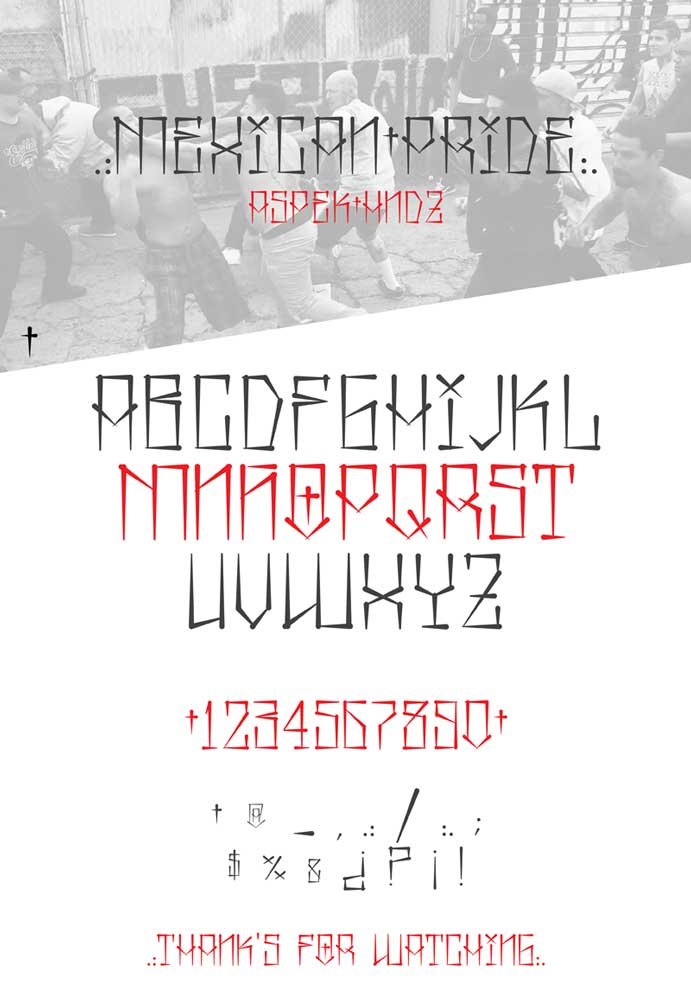
Mexican Pride is a vibrant and eye-catching font that’s inspired by traditional Mexican art with a modern twist. Its bold and decorative style makes it perfect for projects celebrating Mexican culture, festivals, or anything that needs a vibrant touch.
This font features unique patterns and designs that help your text stand out, making it great for creating eye-catching posters, festive invitations, or energetic typography. Its fun and bold look is ideal for designs that show pride and celebration.
3. Angilla Tattoo
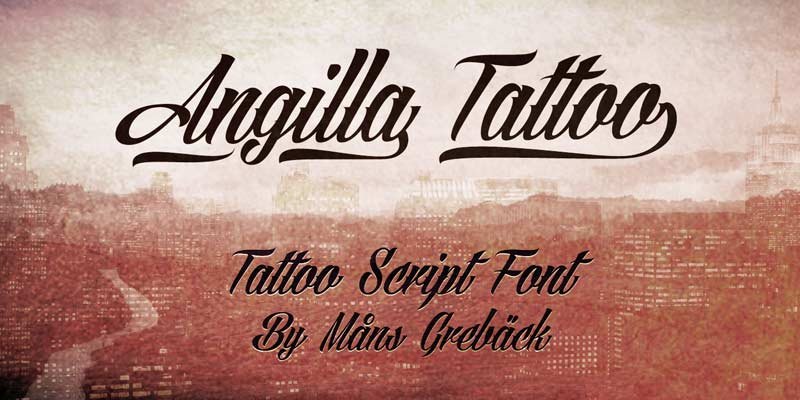
Angela Tattoo is a smooth, flowing script font that is perfect for tattoo designs or any project that requires an artistic touch. The letters are beautifully curved, giving it a personal and handmade feel. This makes it great for tattoos, posters and logos that want to stand out with style and personality.
4. Gangsta by Richie Mx
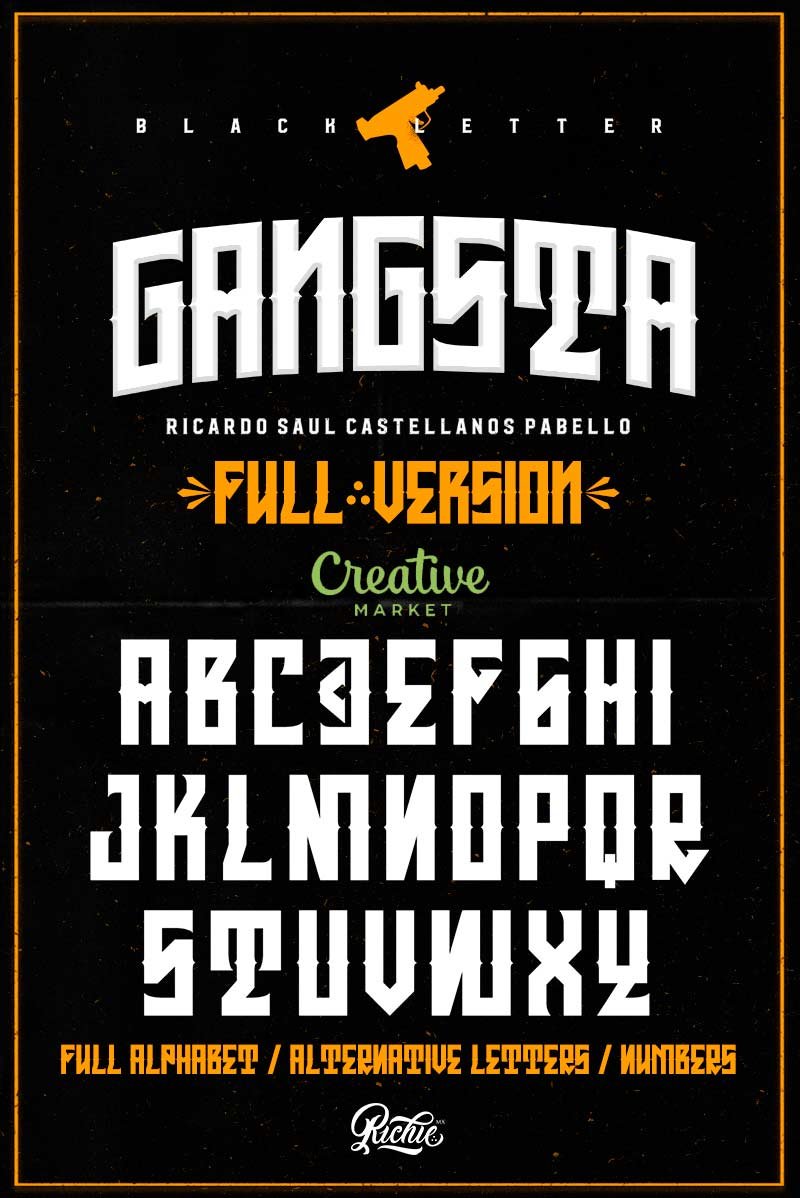
Gangsta by Richie MX is a bold and edgy font inspired by the Chicano and street art styles. It has thick, sharp lines and a strong, rebellious vibe, making it perfect for designs that need to stand out with attitude. This font is ideal for posters, tattoos, logos, or any project that wants to convey a tough, urban feel.
5. Tribal
Tribal is a bold and decorative font inspired by tribal art. It features unique, detailed letter shapes that are perfect for adding an exotic or cultural touch to your designs. This font is great for creating eye-catching tattoos, posters, or logos that require a distinctive and artistic look.
6. Chicano Font
The Chicano font is a bold and script font inspired by traditional Chicano tattoo designs. It features intricate, detailed letters that give off a strong, cultural vibe. This font is ideal for tattoos, logos, posters, or any design that needs an eye-catching, artistic look. The detailed style of the font makes it perfect for projects that want to celebrate Chicano culture or add a unique, personal touch to a design.
7. Eastside | Blackletter Font
The Eastside font combines the classic Gothic style with a modern twist. It features wide, bold strokes that create a unique and eye-catching look. Perfect for eye-catching designs, branding, and vintage projects, this font combines traditional elegance with a modern Chicano touch.
As you explore and experiment with Chicano fonts, don’t forget to think about what you want to convey and how these fonts might align with your design goals. With their bold style and rich cultural background, Chicano fonts offer endless possibilities for your next project.
So, whether you’re adding a cool letter font in the Chicano style or creating a gangster-themed design with a Chicano number font, dive into this font category and let the spirit of Chicano lettering boost your creativity.